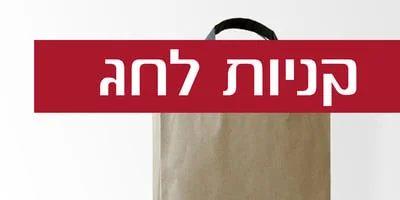
Parmezan MF Font
Parmezan MF Font is perfect for gourmet restaurants, artisan food brands, culinary magazines, luxury packaging, Italian restaurants, wine labels, and premium gastronomy branding. This distinctive typeface brings Mediterranean elegance and culinary sophistication to food-related design projects.
Parmezan MF Font is exciting because it captures the essence of artisanal craftsmanship and culinary excellence with its refined letterforms that evoke the rich tradition of Italian gastronomy while maintaining contemporary functionality and exceptional visual appeal.
The Parmezan MF Font family includes multiple weights and stylistic variations that reflect the artisanal quality of traditional food craftsmanship. This flavorful collection provides designers with authentic options for creating memorable and appetizing culinary brand experiences.
Parmezan MF Font offers designers access to a deliciously crafted typeface that embodies the sophistication and tradition of gourmet cuisine. This elegant font features carefully designed letterforms with refined details that create immediate associations with quality, tradition, and culinary excellence. The typeface showcases warm character and appetizing aesthetics that enhance food-related communications while maintaining professional readability. Its culinary character makes it particularly suitable for premium food brands and gastronomic establishments that require typography capable of conveying authenticity, quality, and sophisticated taste. Parmezan MF Font delivers exceptional flavor for applications where generic fonts fail to capture the richness and cultural heritage of culinary traditions. The font's gourmet appeal and refined aesthetic make it an essential tool for designers working on projects that require typographic expression of culinary artistry, Mediterranean charm, and gastronomic excellence that resonates with food enthusiasts seeking authentic culinary experiences.